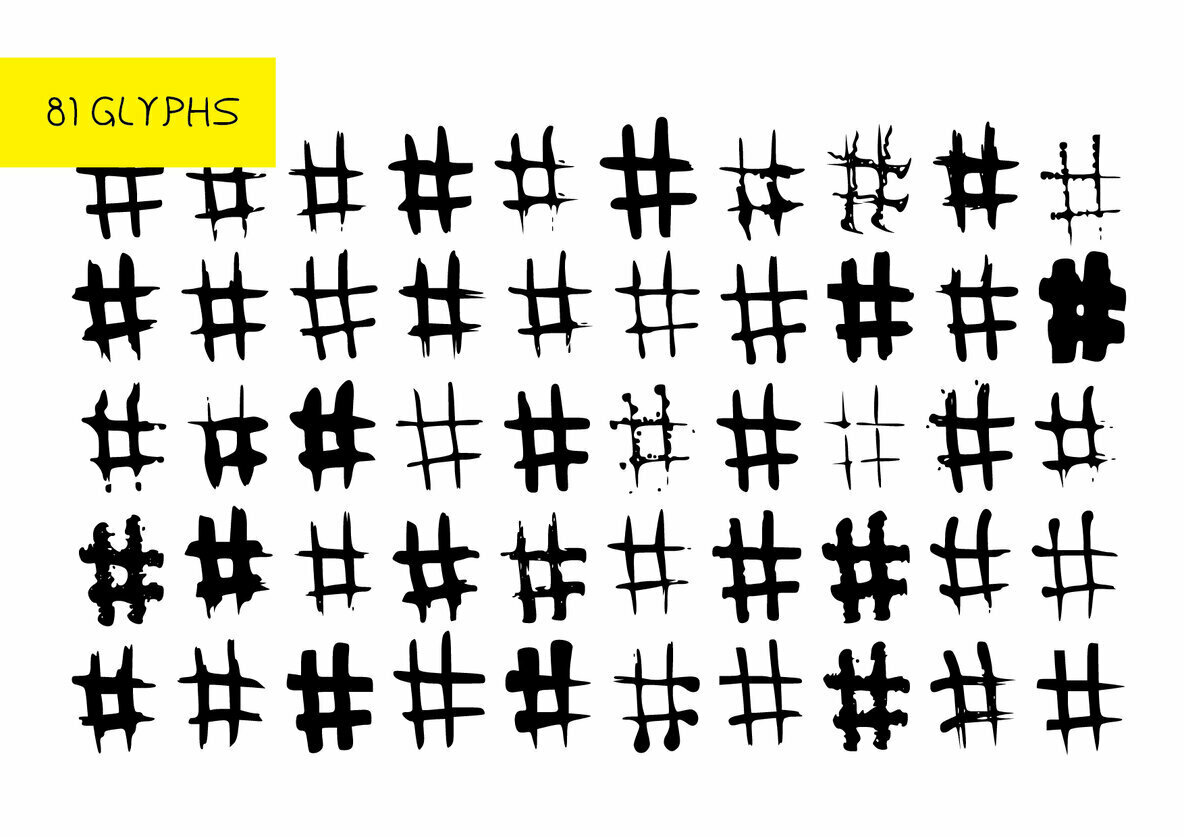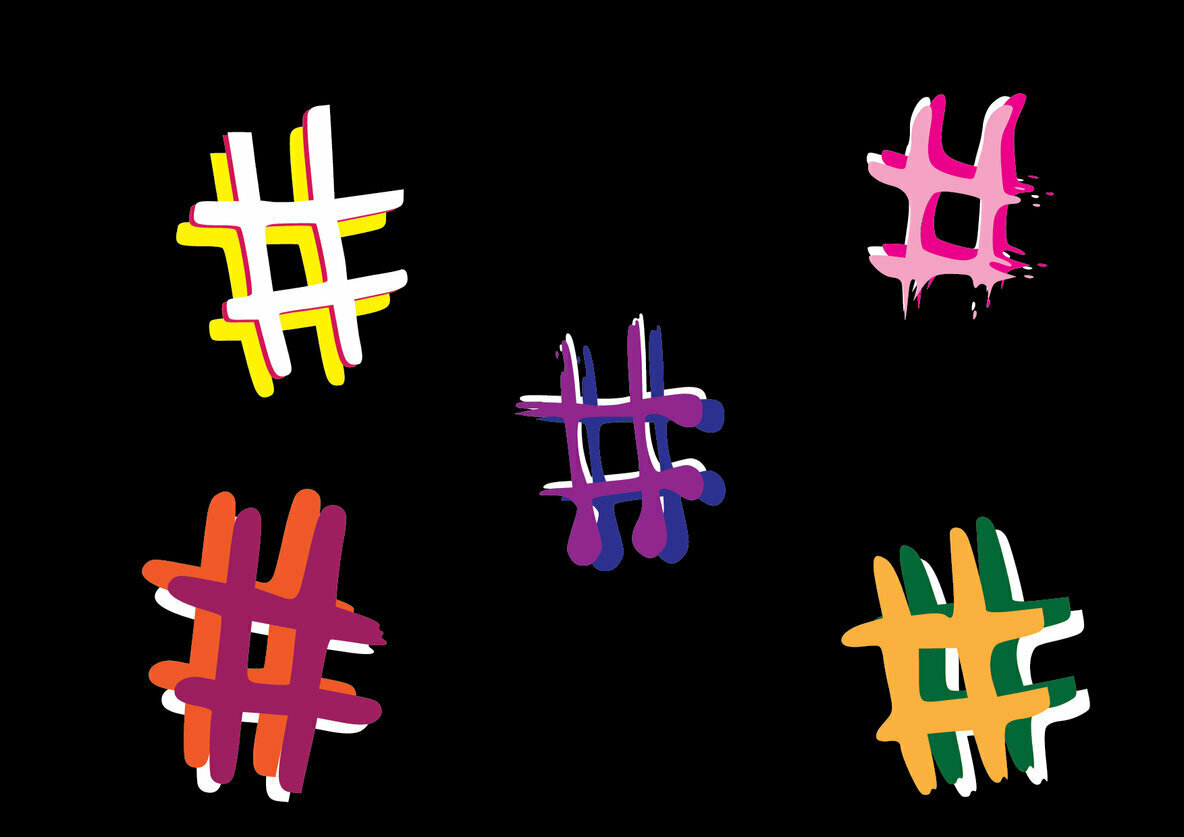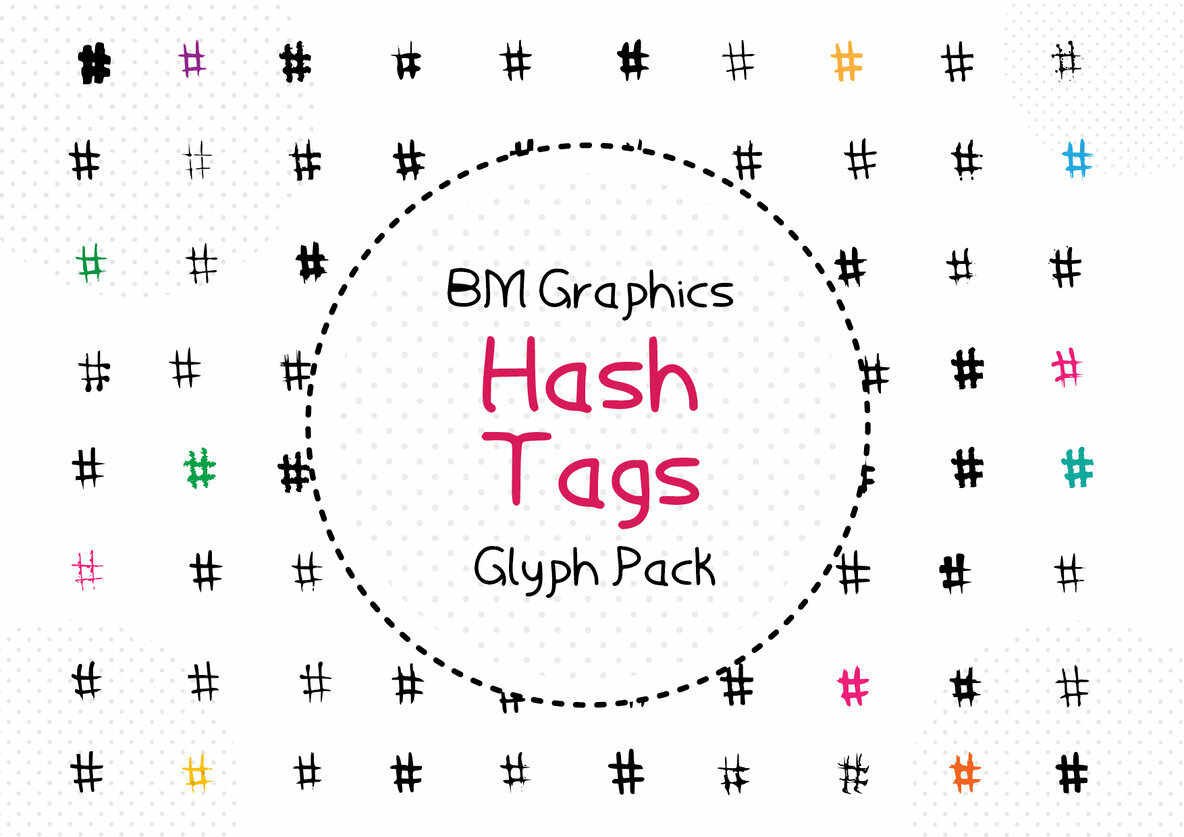
BM Graphics - Hash Tags Font
BM Graphics Hashtags
BM Graphics - Hash Tags is a stunning dingbats font that combines 81 Glyphs. Use it for any design project that requires a hand drawn look and feel, there are so many to choose from!
A passionate designer based in England, Graphic Bam Fonts began exploring the world of typography as a creative outlet that quickly evolved into a thriving side project. I craft unique, original fonts that stand out for their distinctive character and versatility. My goal is to create typefaces that inspire an...